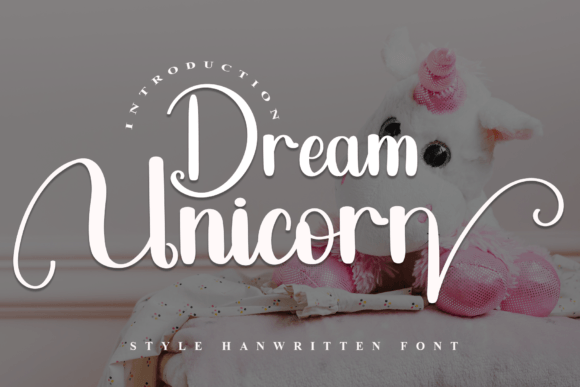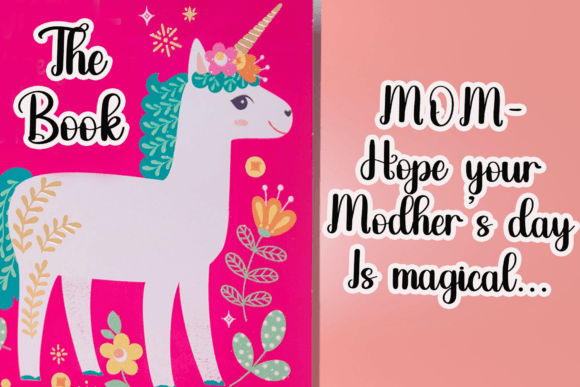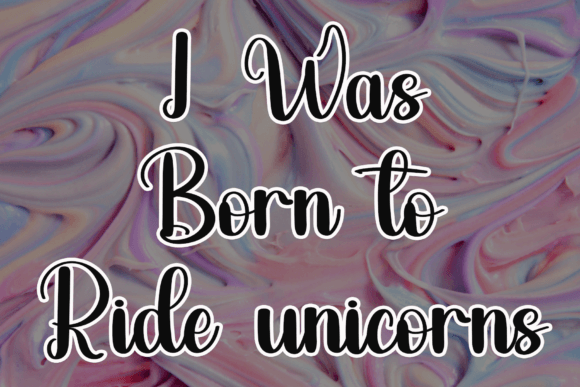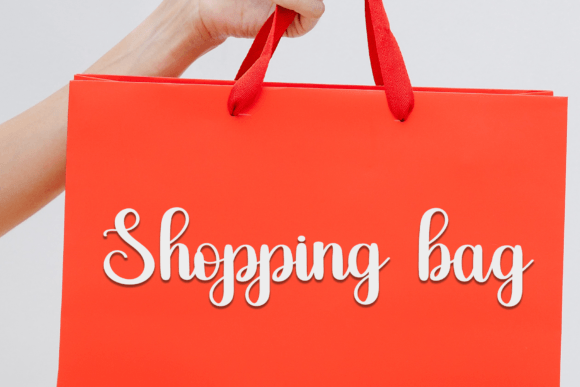
Dream Unicorn Font: A Cute Handwritten Script for Cricut Crafts
About the Dream Unicorn Font
The Dream Unicorn Font is here to transform your projects with its distinctive character and style. Dream Unicorn is a neat and beautiful handwritten font depicted with a touch of elegance, perfect for your favorite projects. Fall in love with its incredibly distinct and timeless style, and use it to create spectacular designs!
Dream Unicorn’s elegant, handwritten style is ideal for projects requiring a touch of whimsical sophistication. It excels in headlines, short-form text on packaging, and branding elements such as logos or short taglines where its unique character shines. Avoid using it for body text or lengthy paragraphs; its delicate nature makes it less legible at smaller sizes.
This font pairs well with clean sans-serif fonts like Montserrat or Lato for a balanced contrast, or with a playful, slightly rounded geometric sans-serif like Futura for a modern feel. For a more luxurious effect, consider pairing it with a classic serif like Garamond.
Dream Unicorn projects a friendly, yet sophisticated personality, best suited for brands targeting a female audience or those associated with beauty, fashion, or children’s products. Its distinct style makes it memorable, particularly in applications needing a touch of charm and personality.
Dream Unicorn Font Usage Examples
Dream Unicorn Font Example